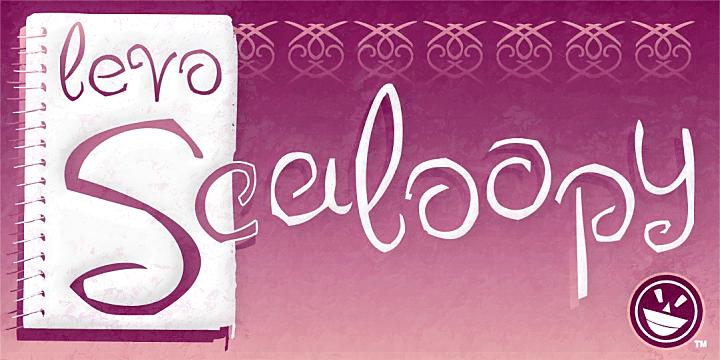
Font name: | LEVO Scaloopy |
Author: | Fontry |
Note by Fontry | |
LEVO Scaloopy by LeVonna R. Adkins Can't make up your mind whether you want scallops or loops in your scripty, handwritten font? The Fontry's LEVO Scaloopy provides both, for that artsy, edgy feeling. This freebie version of Scaloopy is limited to numbers and alphabet. Explore your character map for the hidden goodies lurking in the extended range of letters. Honest font users who use this font commercially are asked to donate $5 USD at paypal.com. Send payment to the_fontry@yahoo.com. For more questions about commercial use or any other use of this font, please feel free to contact us at: the_fontry@yahoo.com or visit the Fontry website http://www.thefontry.com/ |